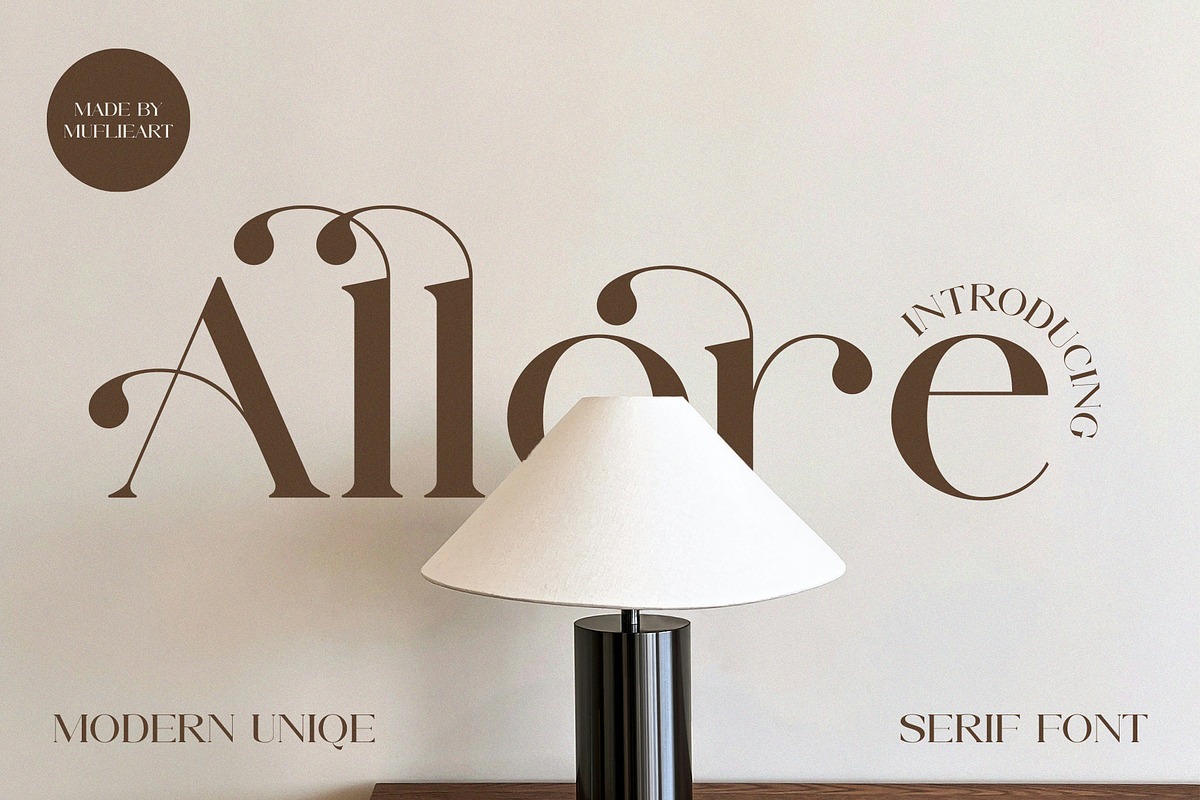
Morinna Font is a flexible and reliable font created to fit multiple design needs, from branding and packaging to social media and editorial layouts. Allore the elegant, beautiful, and modern Serif. With its modern and minimalist look, Allore brings a luxurious, classy, and clean style to your projects such as websites, modern logos, brand identities, social media quotes, wedding stationery, magazines, and more!
Allore features unique and classy capital letters A to Z and also comes with unique alternates and ligatures making Allore a beautiful font that can be customized for various projects and jobs you want.
Allore is perfect for: logos, brands, wedding invitations, business cards, greeting cards, posters, magazines, social media, agenda prints, and websites.